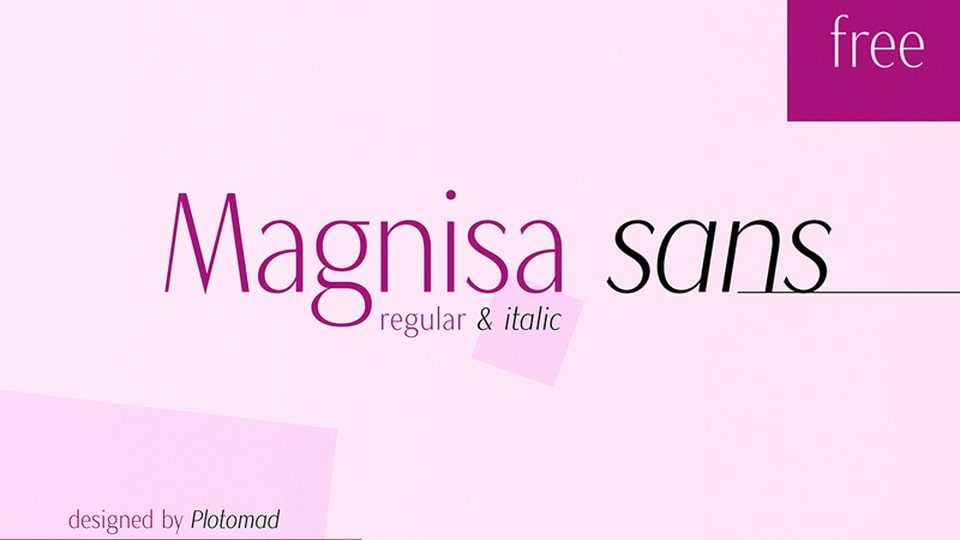
Download Magnisa Sans font, an exquisite and chic sans-serif typeface that is a perfect blend of elegance and modernity. Its versatile nature makes it a go-to choice for any designer looking to create a polished and refined look.
Designer: Aleksey Ryabov